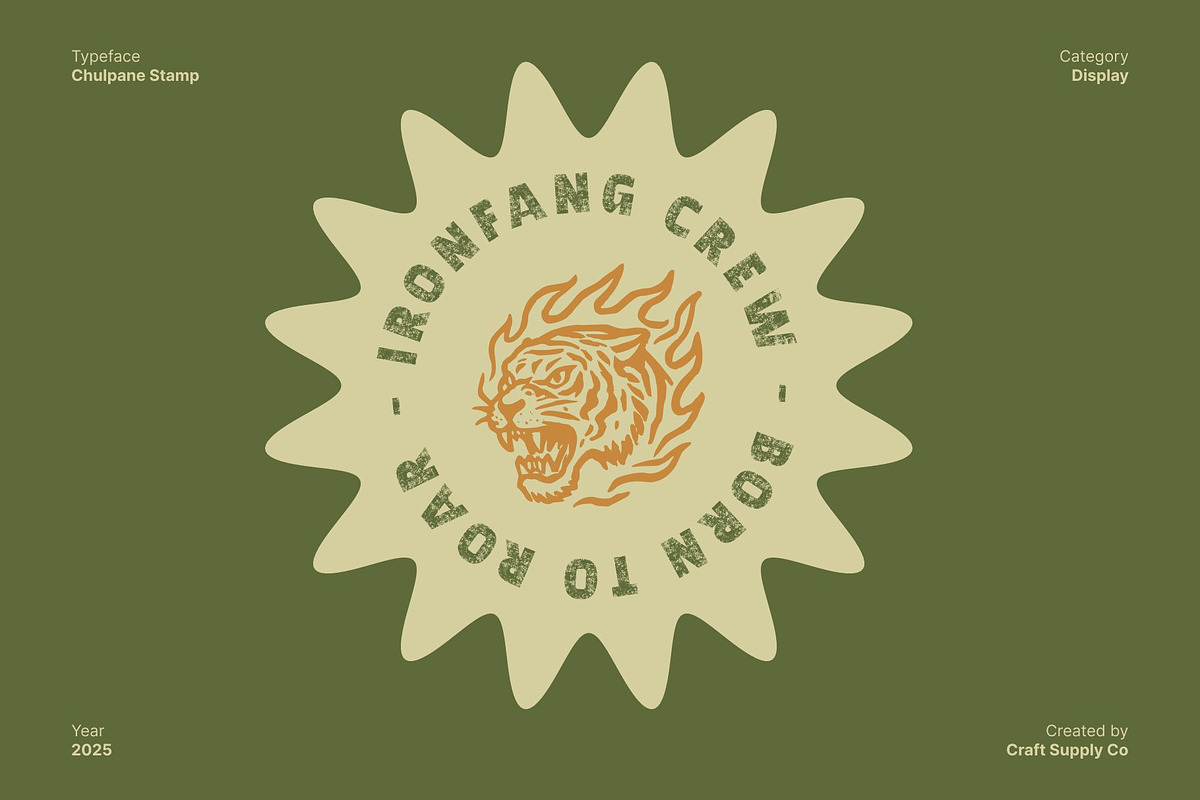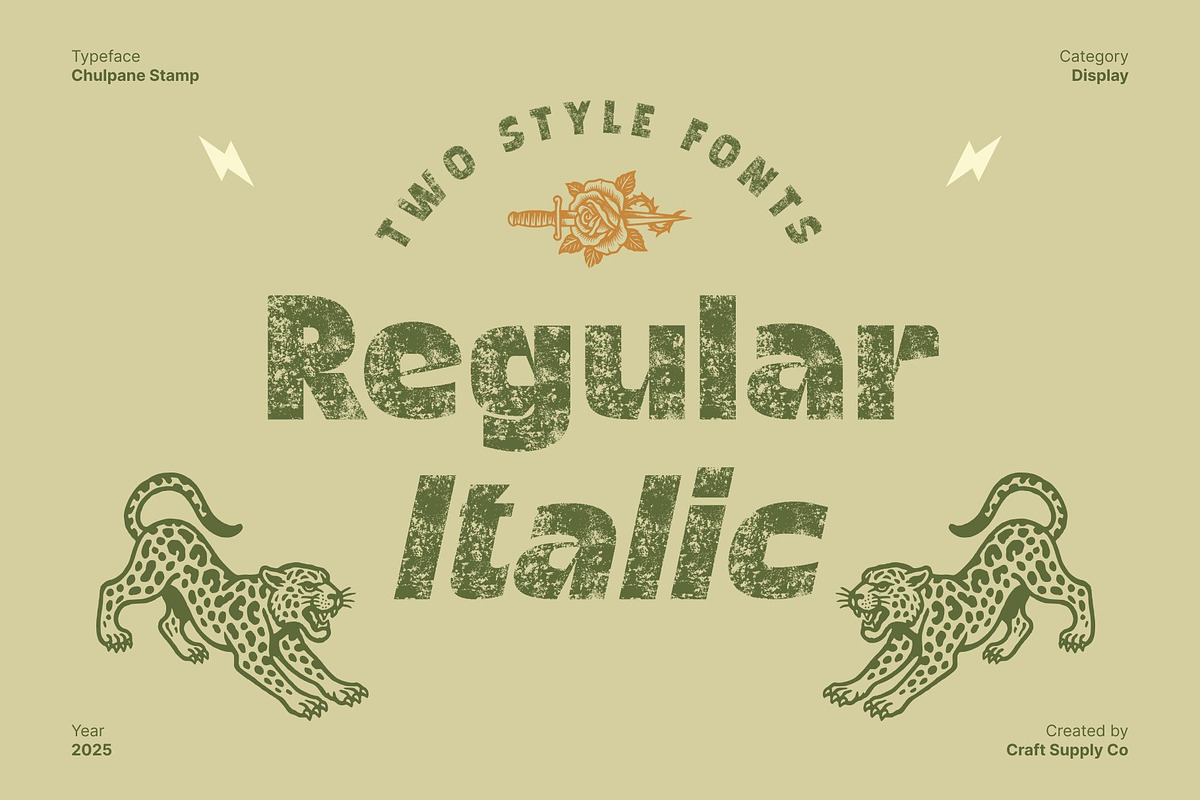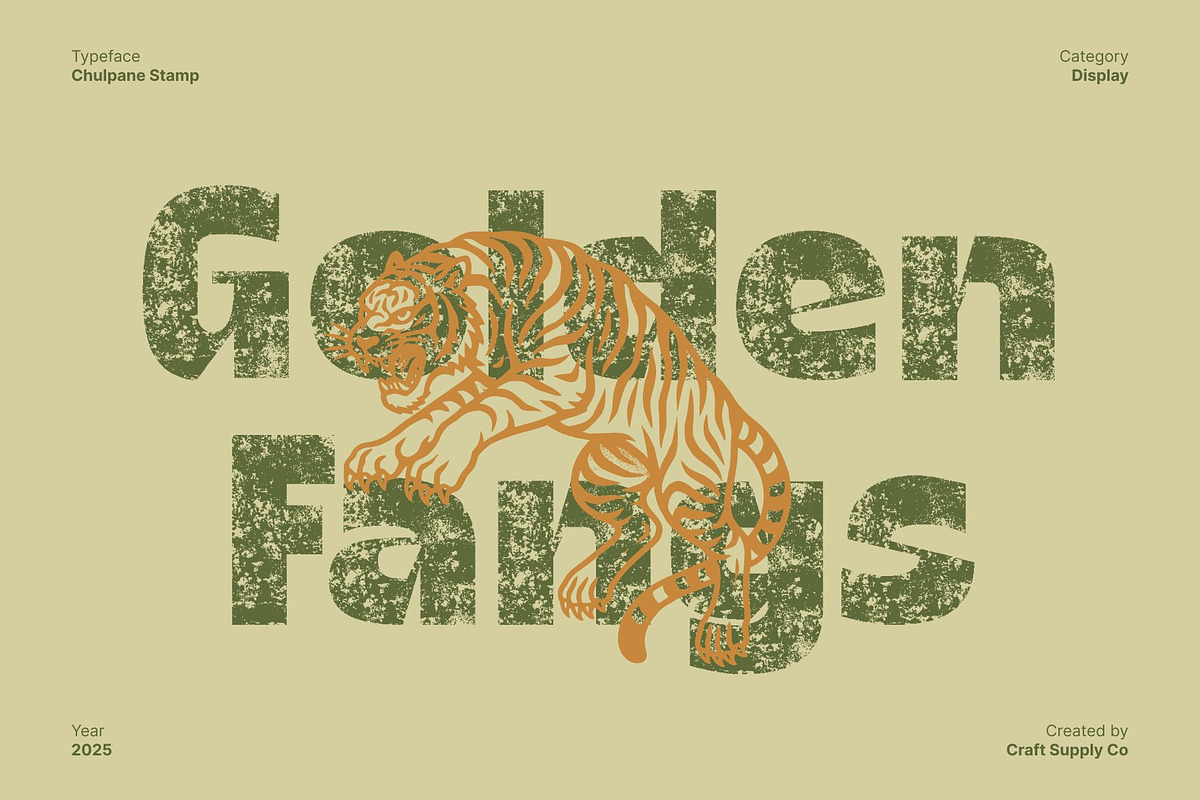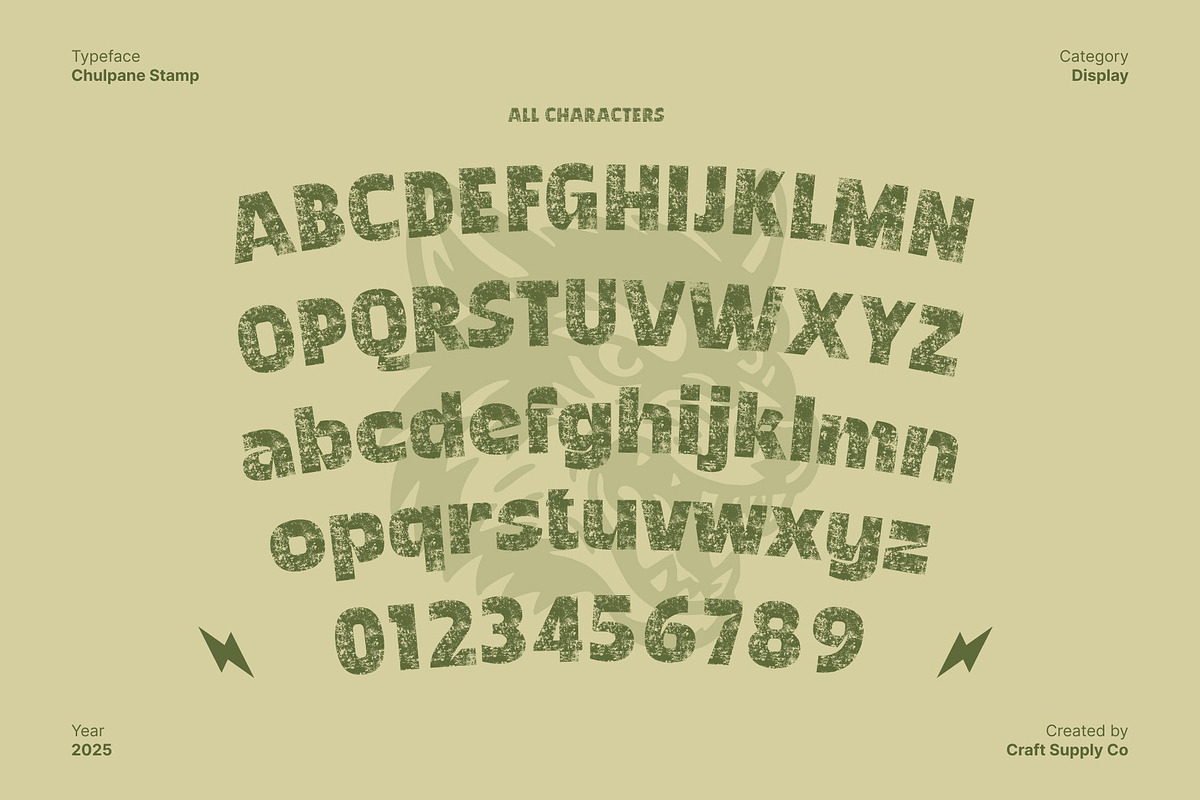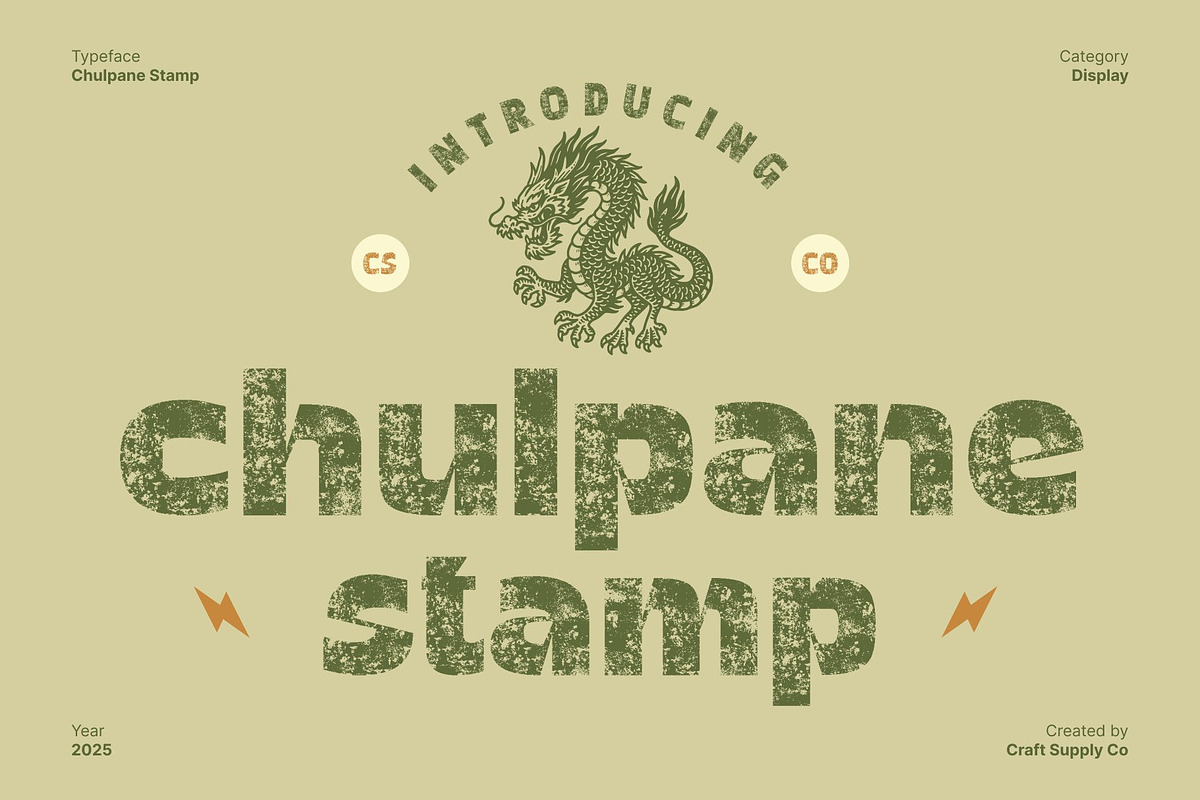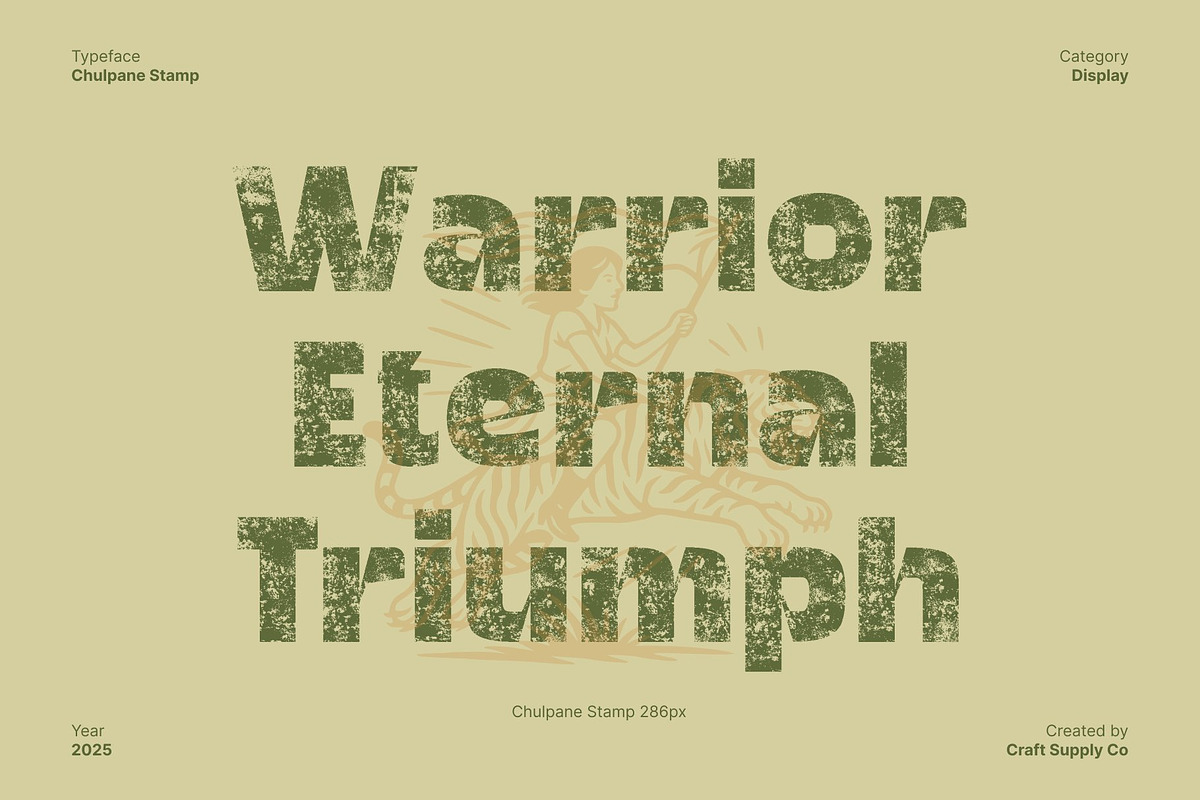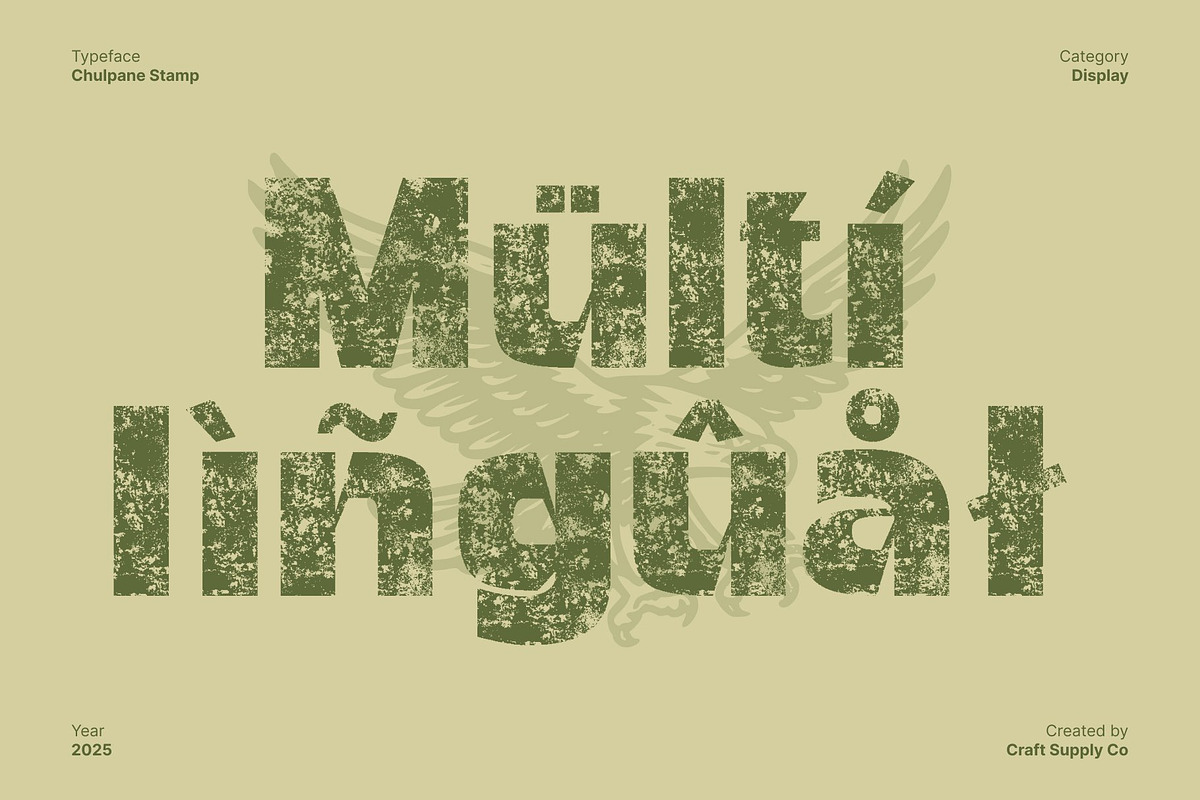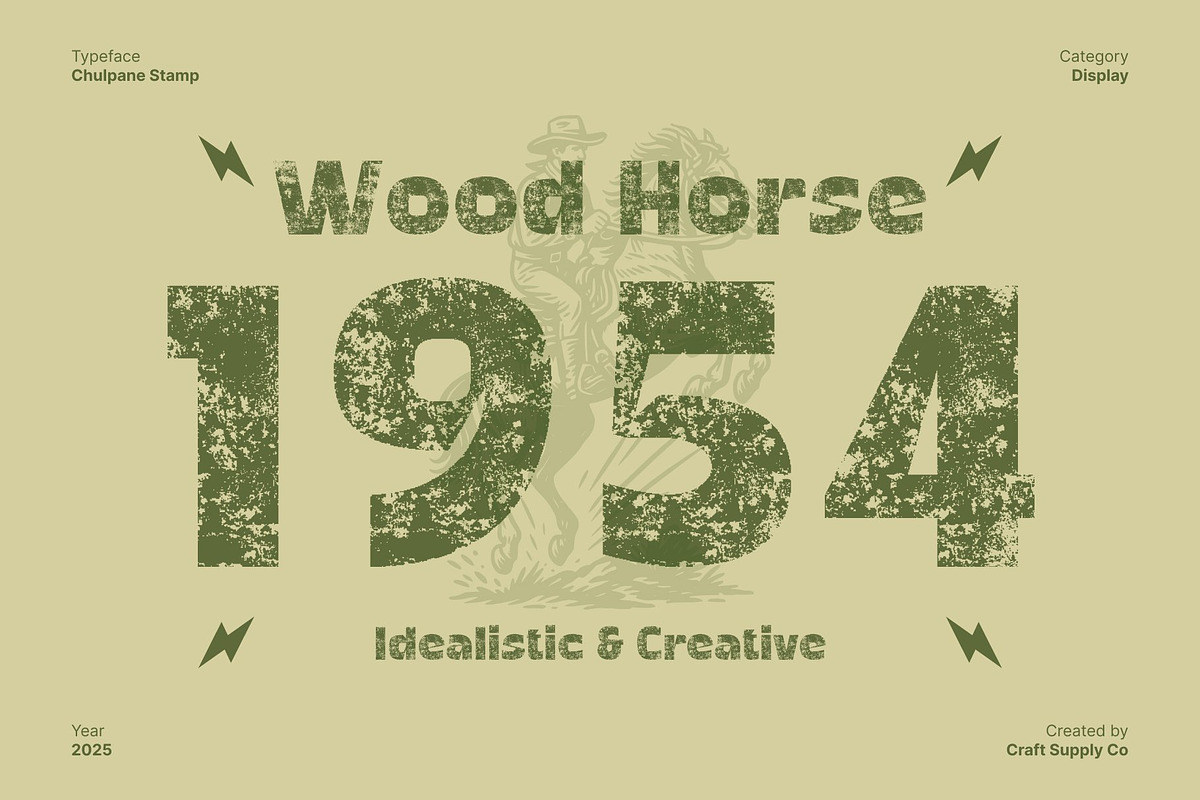
Chulpane Stamp
Chulpane Stamp: Bold Expression with Retro Energy
Strong Sans Serif with Funky Personality This is a bold sans serif display font that radiates confidence and individuality. Its strong, clean shapes are infused with a funky, playful edge, giving each letter a sense of rhythm and personality. Designed to make a visual impact, this font effortlessly combines clarity with creativity, making it perfect for standout modern compositions.
Vintage Character Through Stamp Texture The stamp texture adds a layer of authentic vintage expression, softening its bold structure with handcrafted charm. This textured detail creates a balance between precision and imperfection, allowing the font to feel both retro and expressive. It evokes the look of classic print styles while maintaining a distinctly modern sensibility.
Dynamic and Eye-Catching Design With its striking shapes and retro flair, this font commands attention in posters, branding, and editorial design. The contrast between its bold form and textured finish enhances its visual depth, making it ideal for designers who want their work to feel energetic, approachable, and full of character.
Perfect for Playful and Creative Projects Whether used for logos, headlines, or contemporary layouts, this font injects a sense of fun and unconventional style into any project. Its unique blend of bold geometry, retro warmth, and tactile detail ensures your design stands out with creativity, charm, and bold personality.